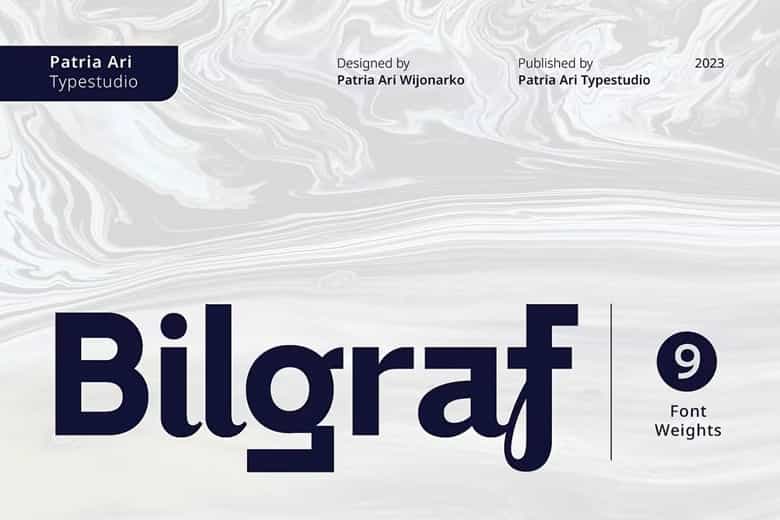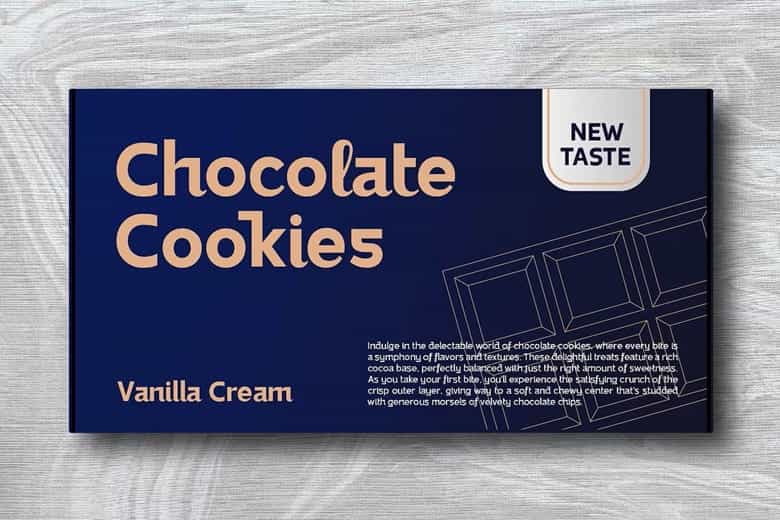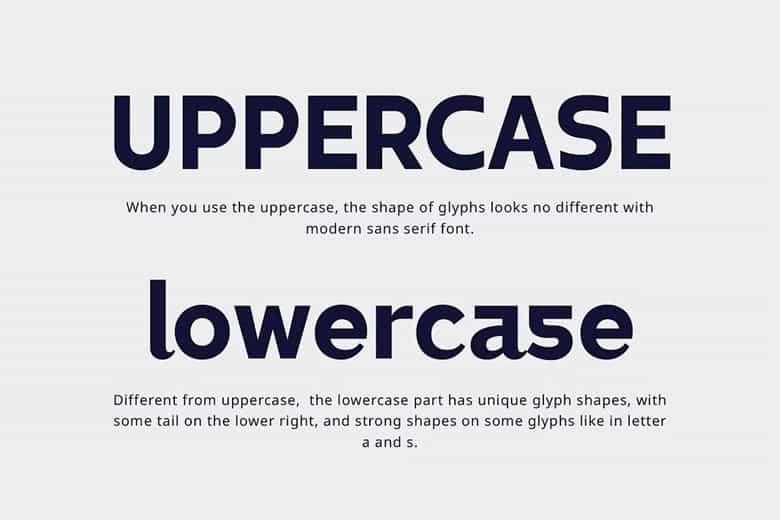
Bilgraf is a cursive craft sans serif combination font. This typeface opens up a world of creative possibilities, offering a harmonious balance between the traditional and the contemporary. Bilgraf combines calligraphy style of font and at the same time the appeal that is style of the sans-serif display font.